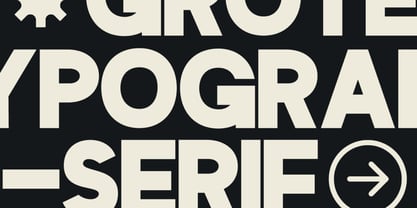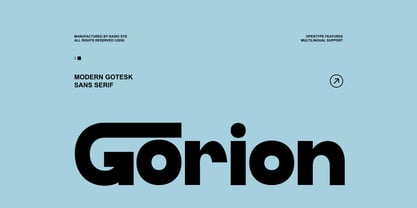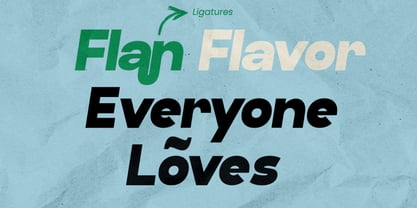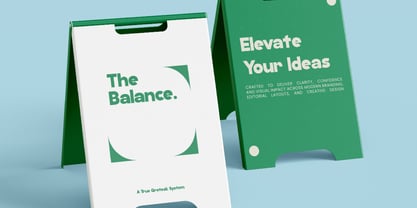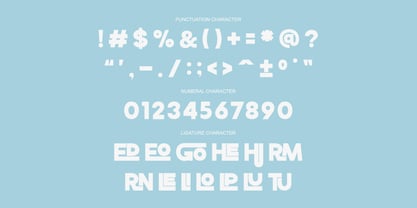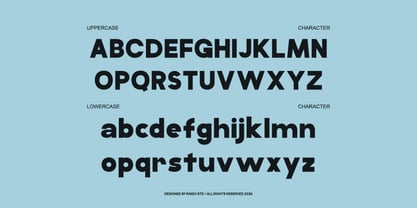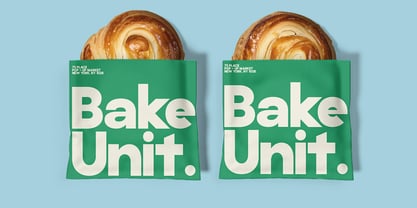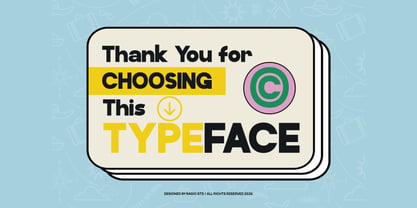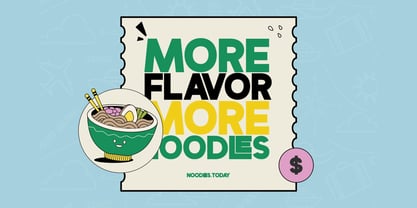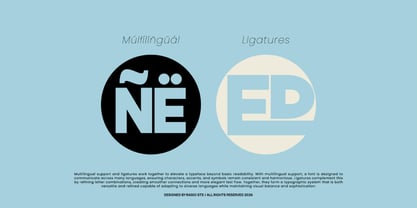
Gorion
The Gorion Font Family was designed by Fajar Indra and published by Rasio Studio. Gorion contains 1 styles. More about this family
Gorion is a modern grotesk sans serif font designed with strong geometric balance and clean contemporary proportions. The letterforms feature bold strokes, smooth curves, and a structured vertical rhythm that create a confident and modern typographic presence. Gorion is ideal for modern branding systems, corporate identity design, editorial layouts, website typography, UI/UX design, posters, packaging, advertising campaigns, and contemporary graphic design projects. The bold grotesk structure provides strong visual clarity that works effectively for both professional and creative applications.